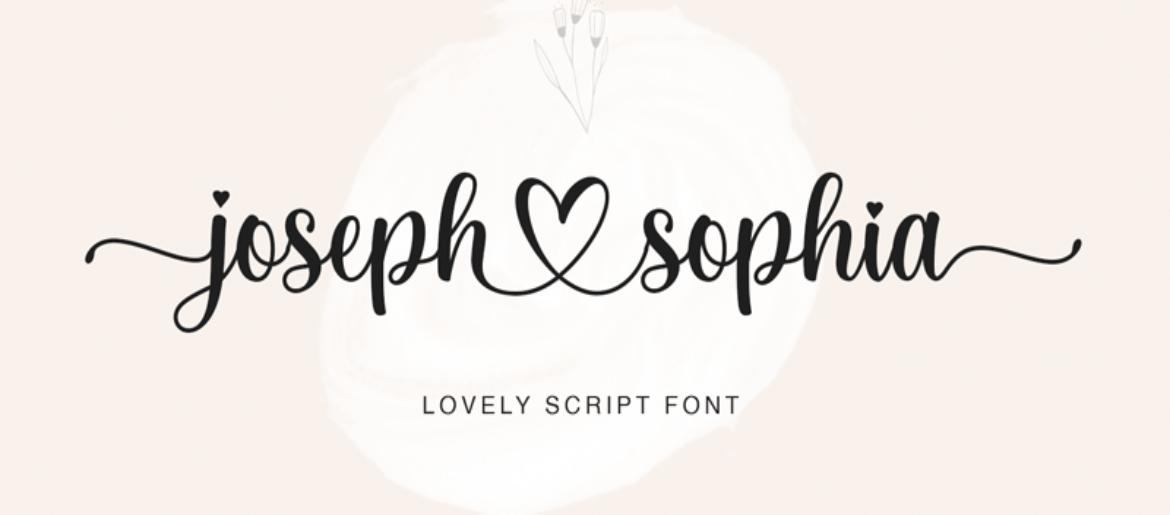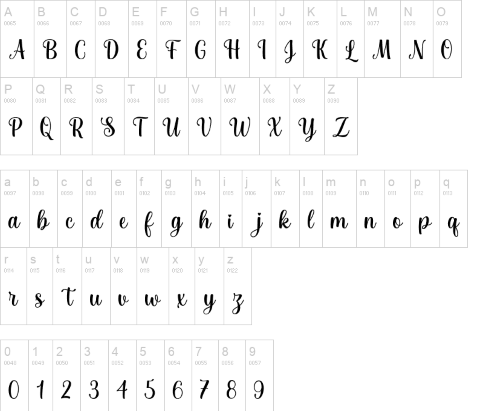
Joseph Sophia Font
Joseph Sophia Font is an elegant handwritten script typeface with smooth, flowing strokes and a romantic, modern feel. Its graceful curves and stylish letterforms make it perfect for wedding invitations, logos, quotes, branding, and feminine design projects that need a soft, beautiful, and personal touch.
➤ Font Name: Joseph Sophia
➤ Designer: Fargun Studio
➤ Style: Calligraphy